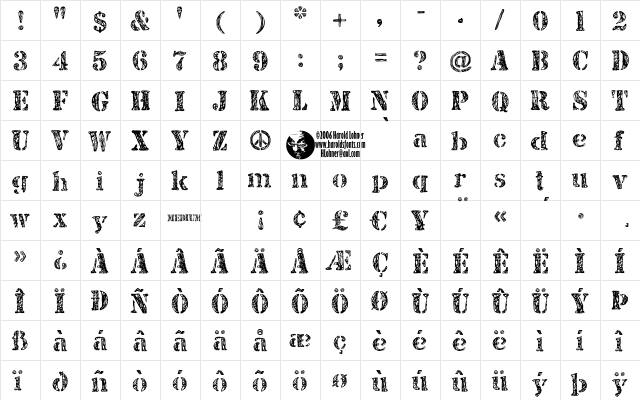
JJStencil Medium Regular Font Preview
JJStencil Medium Regular
JJStencil Medium Regular Font Details
Design Context for JJStencil Medium Typeface
JJStencil Medium borrows the utilitarian aesthetic of stencil lettering, with its characteristic cutaways and no-frills construction lending an industrial edge.
Ideal for industrial branding, streetwear, military-adjacent aesthetics, and urban signage projects.
Pro Tip: Pair JJStencil Medium with raw, utilitarian design elements — exposed concrete textures, flat colour, and minimal ornamentation suit it well.